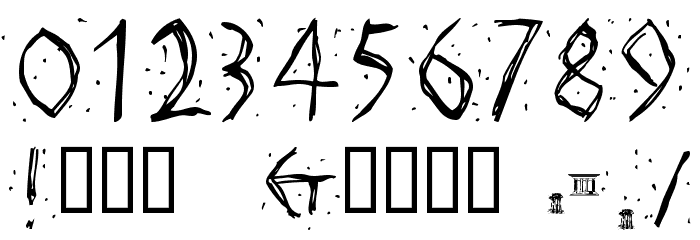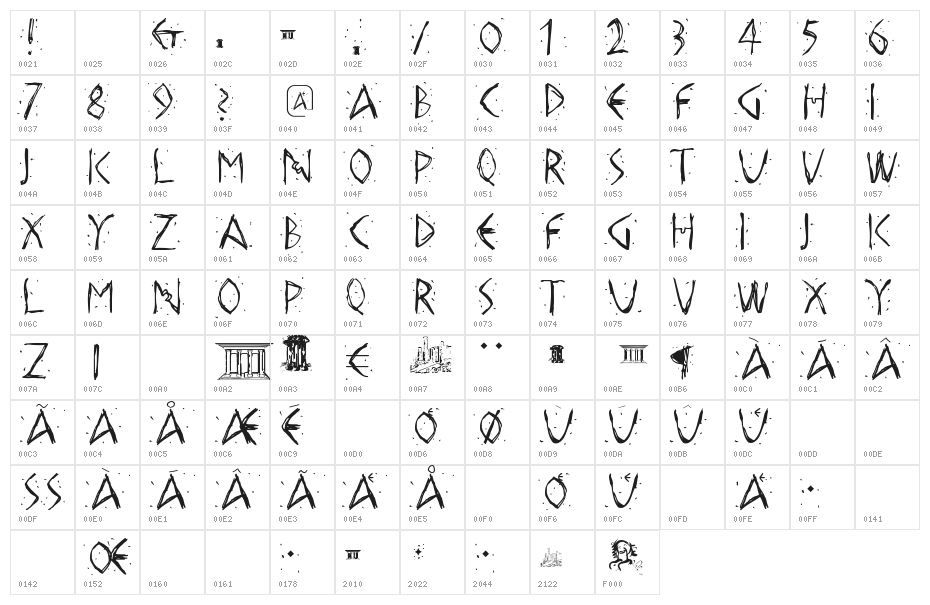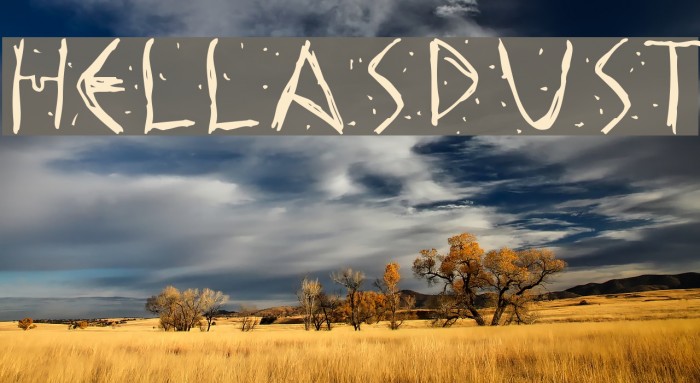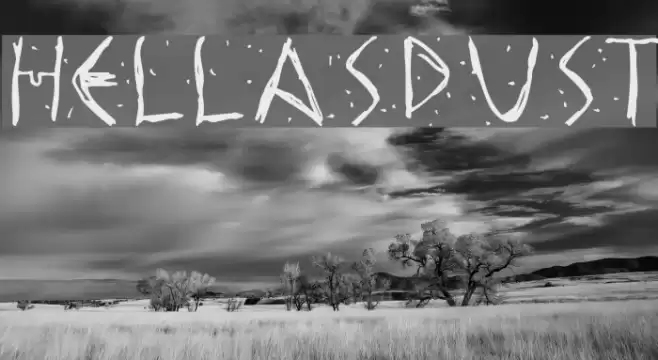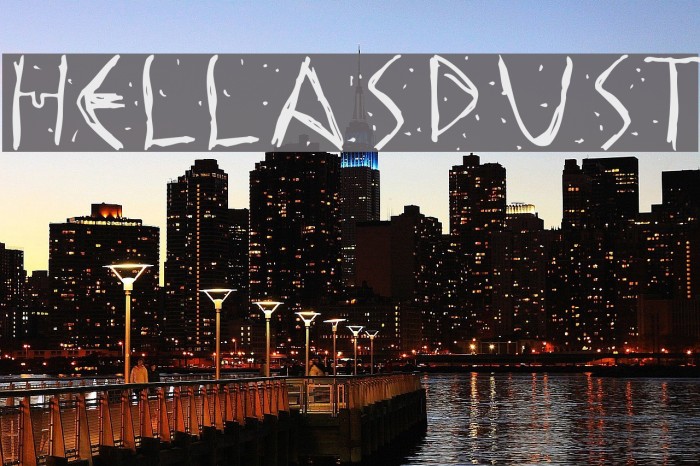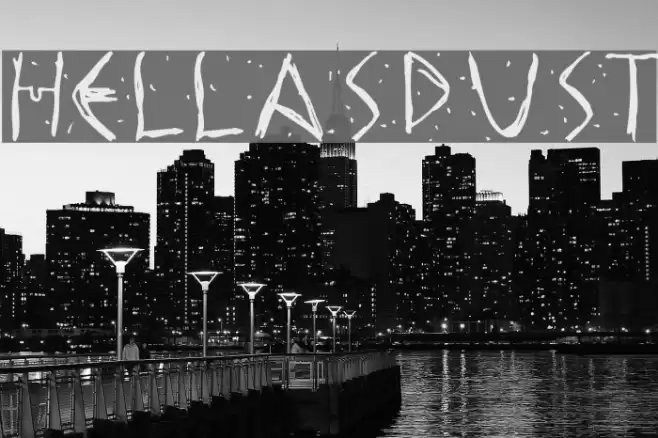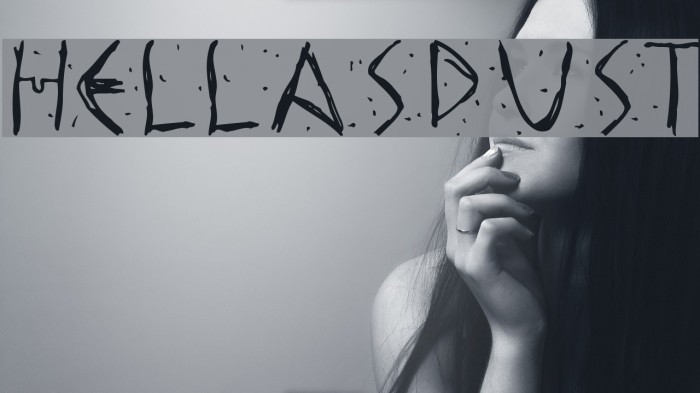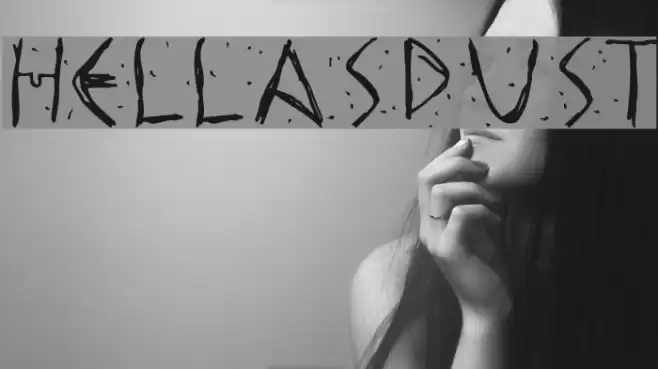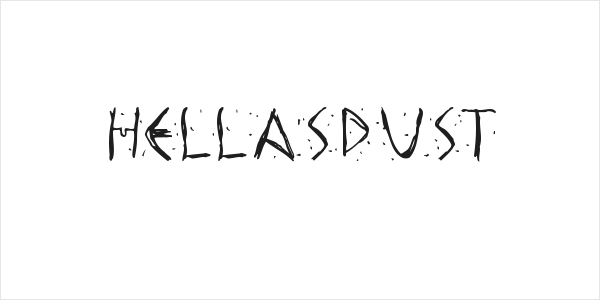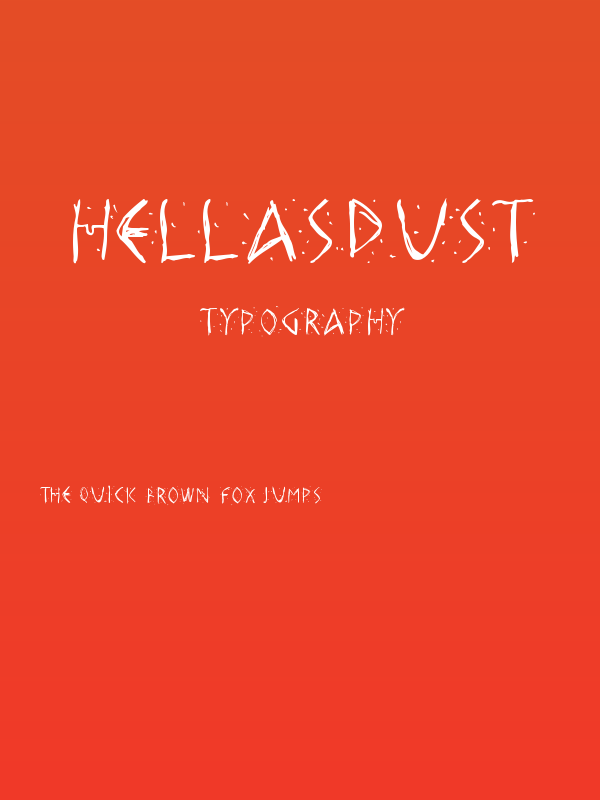
HellasDust Font
HellasDust Description
This font features a rugged, distressed style that evokes a sense of ancient or historical text. The characters are uneven and irregular, with rough edges and a hand-drawn appearance. The uppercase and lowercase letters maintain a consistent theme, with each character appearing as though it has been weathered over time. The numbers and special characters follow the same aesthetic, adding to the overall cohesive look. This font is ideal for projects that require a touch of antiquity or a rustic, handmade feel.
Overall StyleVintage
Use CaseLogos, Posters, Artistic Designs
Proposed ProjectsIdeal for historical-themed designs, rustic branding, or artistic projects that require a vintage touch.